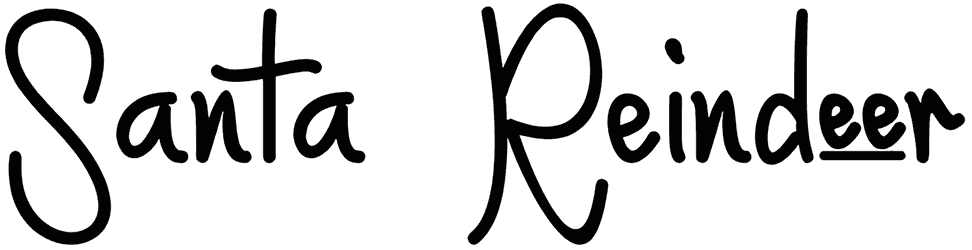
Santa Reindeer Font
Using Santa Reindeer can add personality and charm to anything from invitations and greeting cards to menus and branding materials. This handwritten font can evoke feelings of nostalgia and family authenticity and remind us of simpler times before everything went digital.
Why not use a script font for your next greeting card, wedding invitation, or packaging design? This might be a great way to inject creativity and personality into your work and bring a bit of handmade charm to the digital world.